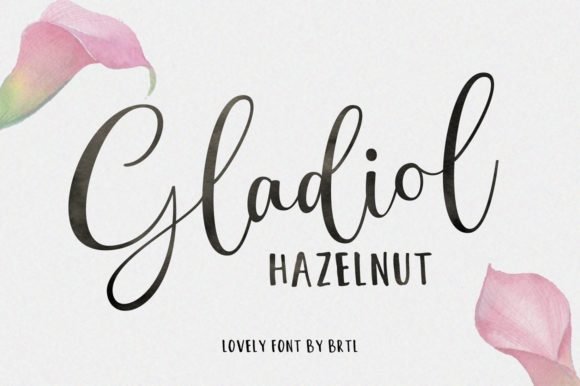
Unleash Your Creativity with Gladiol Font
Have you ever stared at a blank page, waiting for inspiration to strike? You know, that magical moment when the perfect idea pops into your head and you can’t wait to bring it to life? That’s exactly what happened to me when I first laid eyes on the Gladiol Font.
This beautiful, flowing handwritten font is more than just a pretty face – it’s a game-changer for designers. With its well-balanced characters and versatility, the Gladiol Font is the perfect addition to any creative project. Whether you’re working on a branding campaign, a website, or a social media post, this font is sure to elevate your design and make it truly shine.
Gladiol Font Key Features
- Unique Characteristics: Gladiol Font features a unique, elegant design with flowing curves and subtle flourishes, making it ideal for use in high-end branding and design projects.
Gladiol Font Review
Overall, I’d say Gladiol is a decent font, but it has its quirks. Let’s dive into what works well and what doesn’t. ✨
What I like about Gladiol is its elegant, cursive feel. It’s perfect for creative projects, like wedding invitations or luxury branding. The font is highly customizable, with a wide range of weights and styles to choose from. It’s also quite versatile, working well in both digital and print applications.
- ✨ Elegant, cursive design
- ✨ Highly customizable
- ✨ Versatile, suitable for both digital and print
- ✨ Wide range of weights and styles
What I don’t like about Gladiol is that it can be a bit too ornate for some projects. The font is perfect for luxury or high-end branding, but it may not be the best choice for more straightforward or modern designs. Additionally, the font can be a bit difficult to read at smaller font sizes, which may limit its use in certain applications.
Here are some of the limitations:
- ⚠️ Can be too ornate for some projects
- ⚠️ Difficult to read at smaller font sizes
Overall, Gladiol is a solid choice for creative projects that require a touch of elegance. Just be sure to consider the limitations and choose wisely.
Tips for Getting the Most Out of Gladiol Font
The Gladiol font is a beautiful, elegant font that is perfect for formal designs. Here are a few tips for getting the most out of it:
- Use the Gladiol font for headings and titles to add a touch of sophistication to your design.
- Combine the Gladiol font with other elegant fonts to create a unique and eye-catching design.
- Use the Gladiol font in a large size to make a bold statement.
Alternatives to Gladiol FontBebas Neue
Bebas Neue is a modern sans-serif font designed for use in digital media. It is ideal for use in headings, titles, and logos where a clean and elegant look is desired.
Compared to Gladiol Font, Bebas Neue has a more minimalist and futuristic feel, making it suitable for modern designs and digital applications.
Playfair Display is an elegant serif font designed for use in luxury brands and high-end designs. It is ideal for use in headings, titles, and body text where a sophisticated and refined look is desired.
Compared to Gladiol Font, Playfair Display has a more classic and sophisticated feel, making it suitable for use in premium and high-end designs.
What are the technical details of the Gladiol Font?